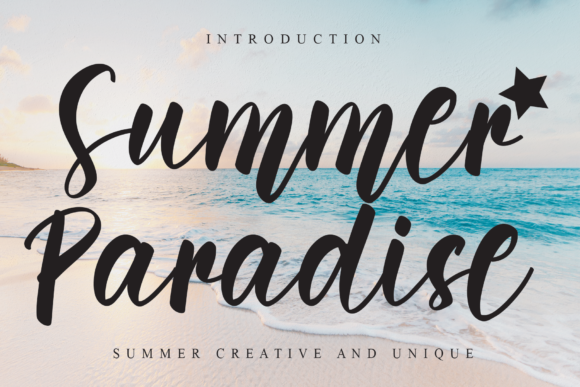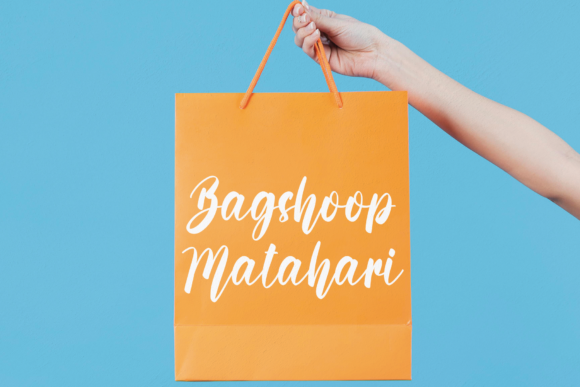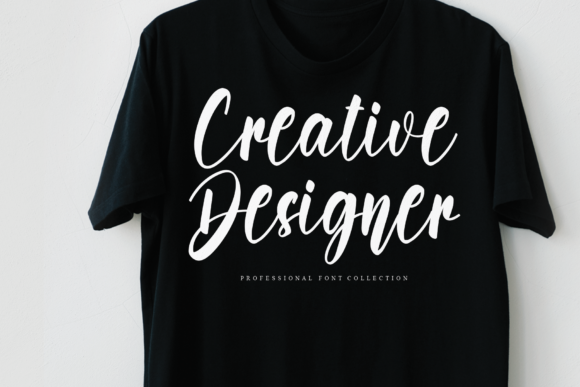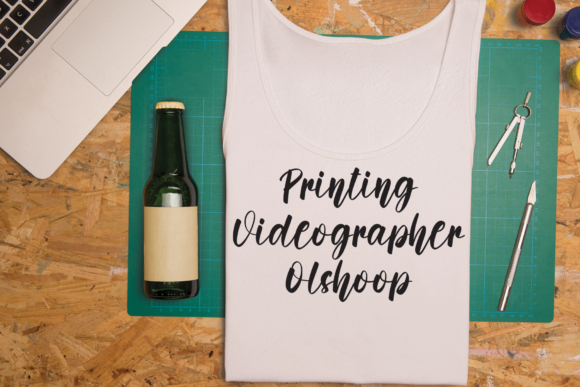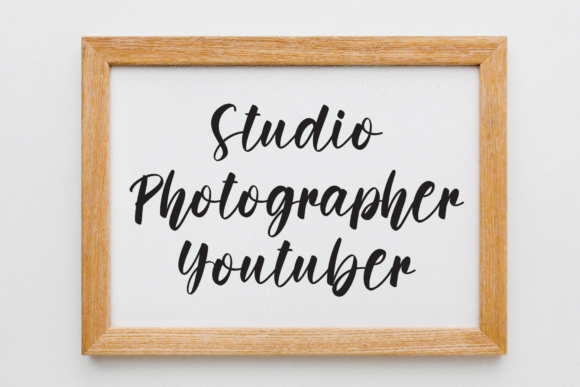
Summer Paradise Font
About Summer Paradise Font
Summer Paradise is an elegant and bold handwritten font, perfect for almost any project! It will add a naturally attractive touch to wedding invitations, birthday cards, product packaging, social media posts, and so much more!